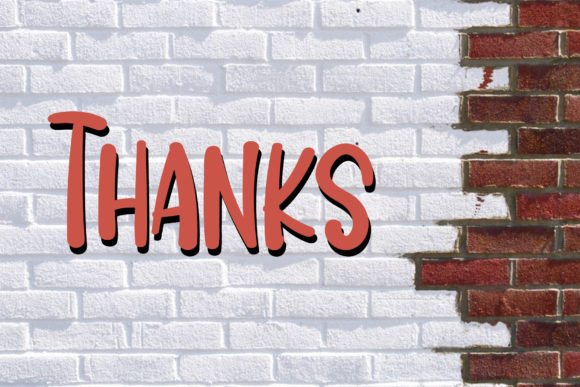
Introduction to Joyful Kids Font
Remember the moment when you stumbled upon a free design resource that transformed your creative project? Maybe it was a high-quality image, a unique texture, or a special font that brought your design to life. For many designers, this moment is what makes all the late nights and early mornings worth it. And today, we’re excited to share with you a font that’s sure to spark joy in your next creative project: the Joyful Kids Font.
This simple, sloppy, and sweet lettered handwritten font is a game-changer for designers looking to add a personal touch to their designs. With its transparent background and versatility, the Joyful Kids Font is the perfect addition to any design project. Whether you’re working on a children’s book, a greeting card, or a social media campaign, this font is sure to bring a smile to your face and a touch of whimsy to your design.
Key Features of Joyful Kids Font
- High-quality design resource ideal for creative projects such as children’s books, educational materials, and more.
- Includes a range of characters, including uppercase and lowercase letters, numbers, and punctuation marks, making it a versatile font for creative projects.
- Designed with a playful and modern aesthetic, the Joyful Kids Font is perfect for adding a touch of whimsy to your design work.
Honest Review: Joyful Kids Font
As a designer, I’m always on the lookout for high-quality design resources that can elevate my creative projects. The Joyful Kids Font caught my attention, and I decided to give it a try.
- Fun and playful design that’s perfect for children’s content or educational materials
- The font may not be suitable for more formal or professional design projects due to its playful nature
- The character set is limited, which may not be ideal for longer blocks of text
Overall, I think the Joyful Kids Font is a great addition to any designer’s toolkit, especially for creative projects that require a playful touch.
The Joyful Kids Font is perfect for a variety of creative projects, including children’s party invitations, educational materials, and marketing campaigns for family-friendly businesses.